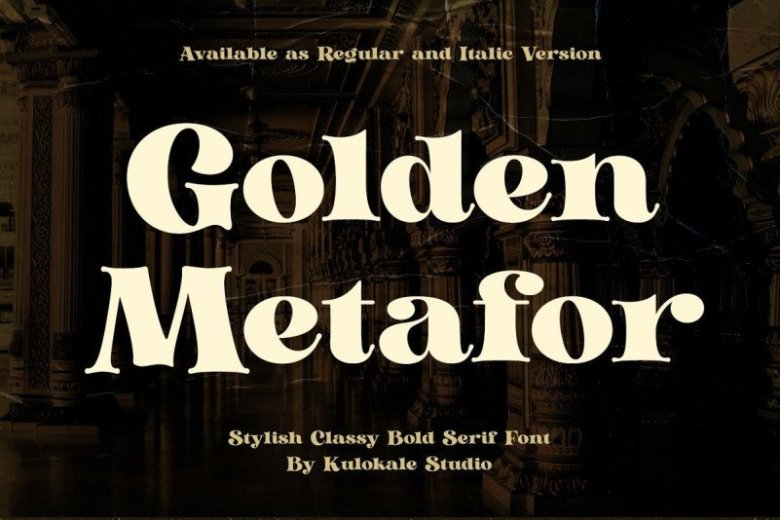
Golden Metafor Serif Font
Golden Metafor Serif Font is a standout serif font that is an ode to fashion typography from the 80s to present day. It’s elaborate curves and unique shapes make it perfect for headings & logos. It’s designed and shared by Kulokale. Classy Bold serif font with beautiful characters and also ligature which makes it easy for you to create a logo for your personal branding and your business beautifully.
Golden Metafor Serif Font is perfect for many different projects such as logos & branding, invitation, stationery, wedding designs, social media posts, advertisements, printed quotes, product packaging, product designs, label, photography, watermark, special events or anything.